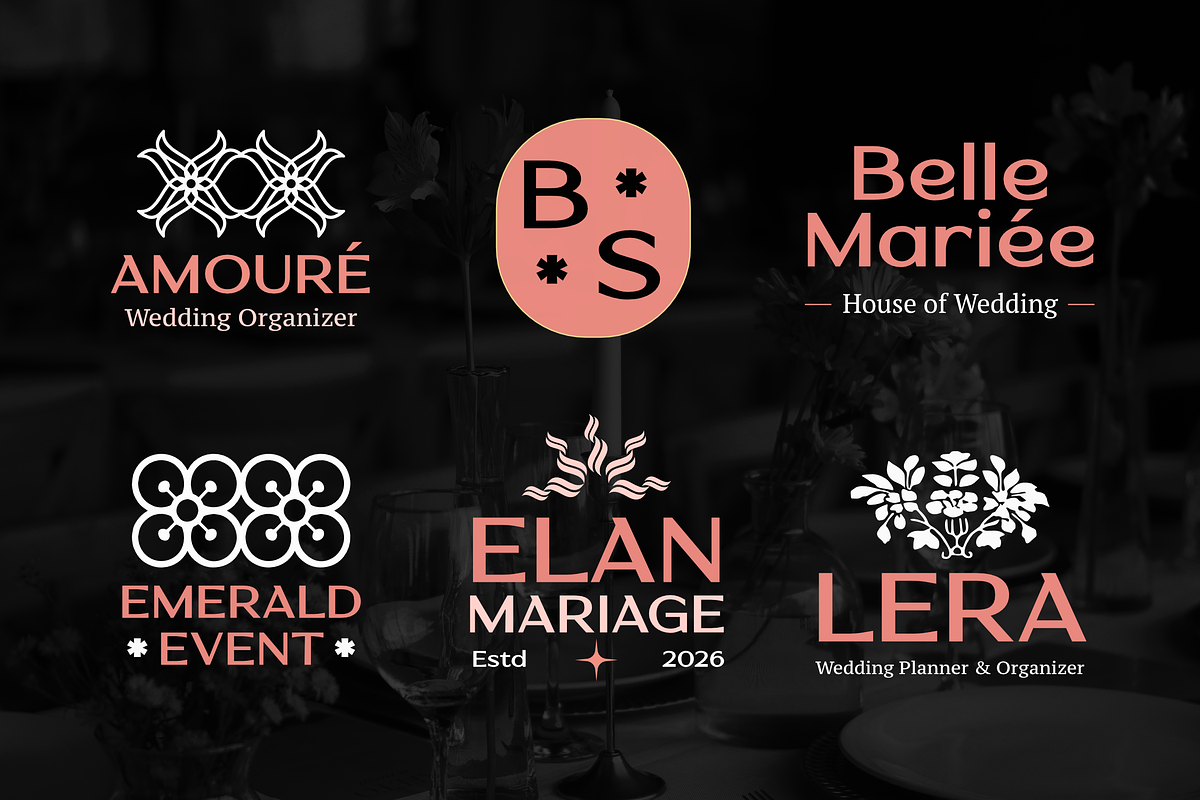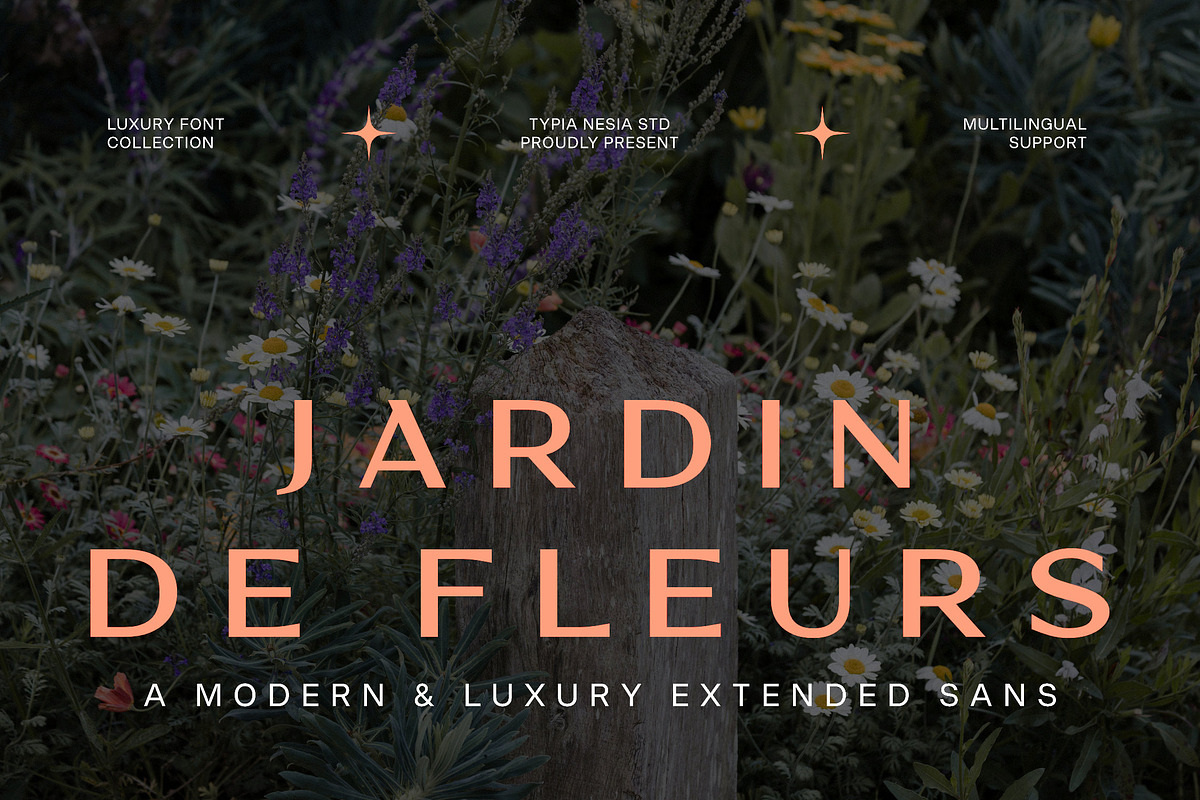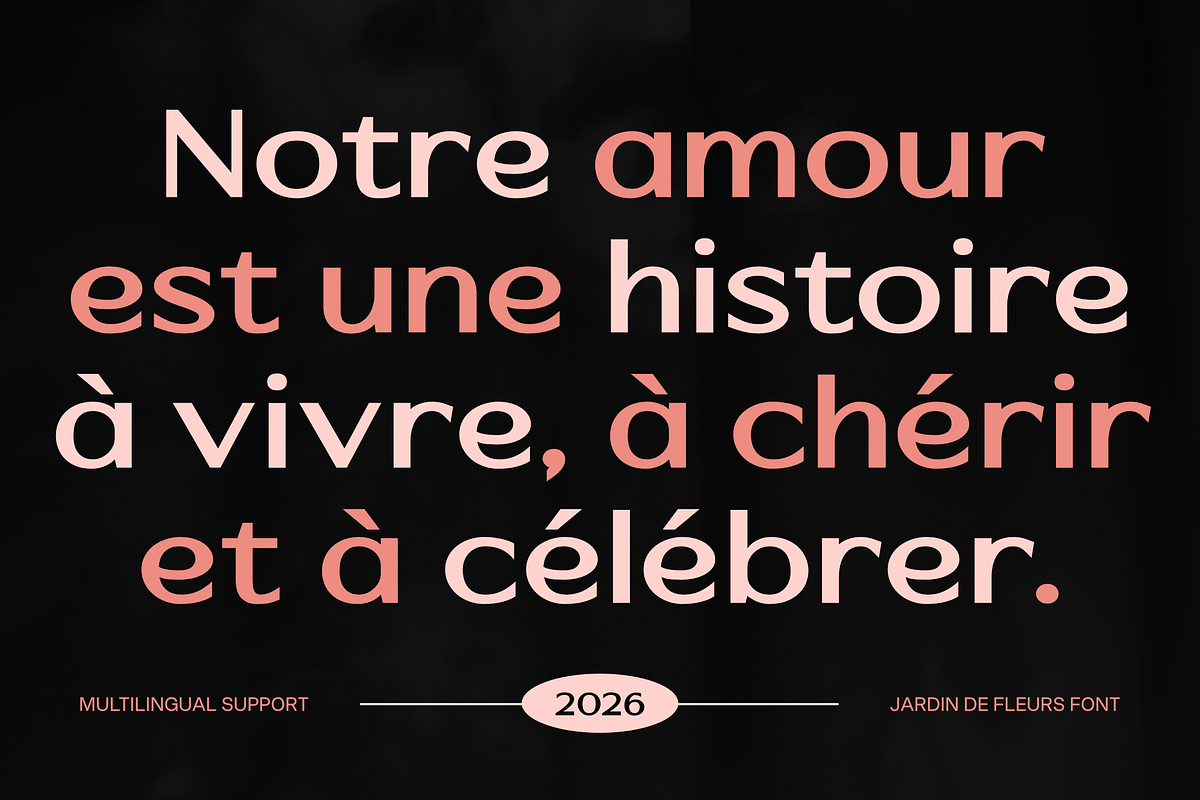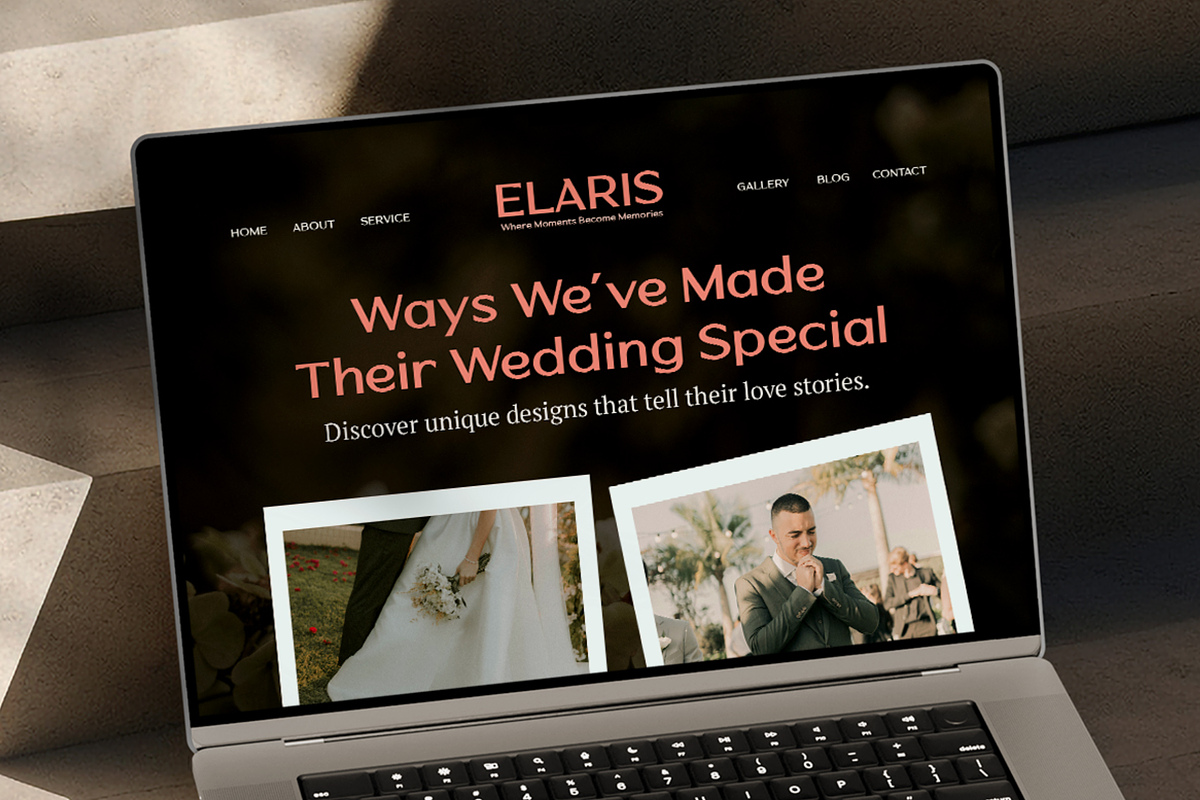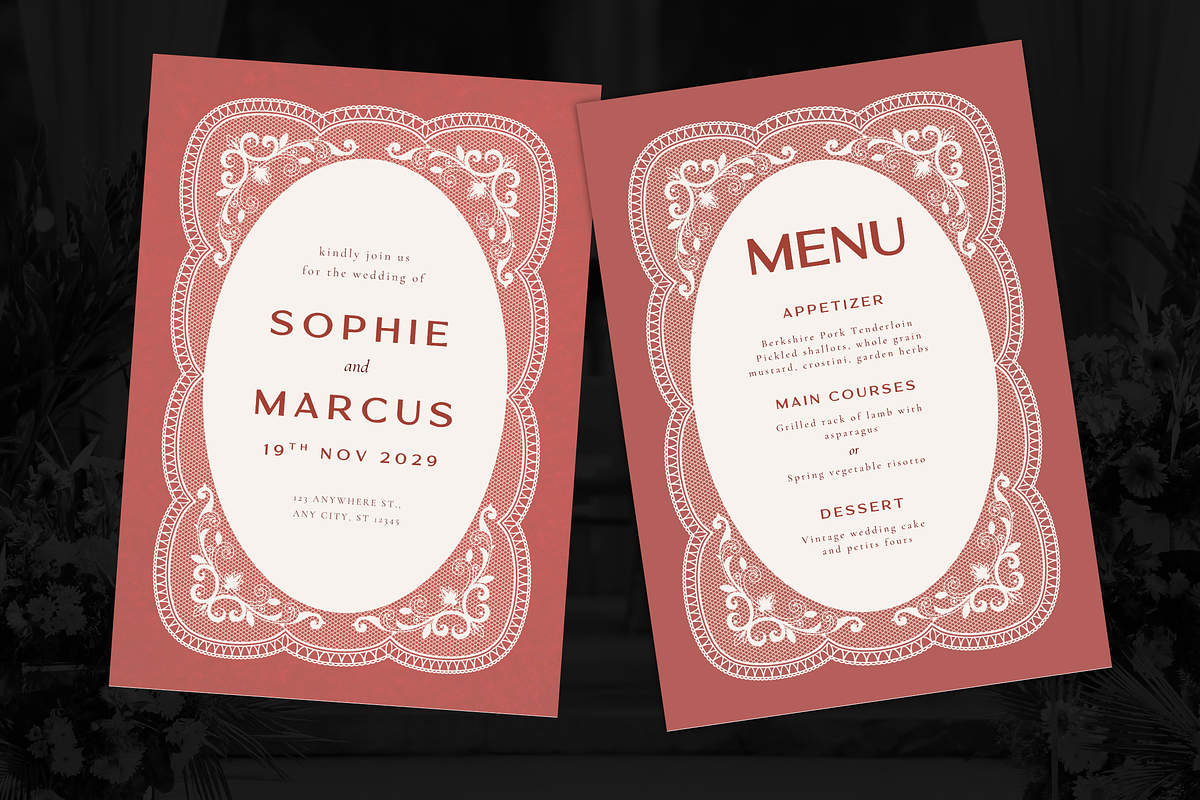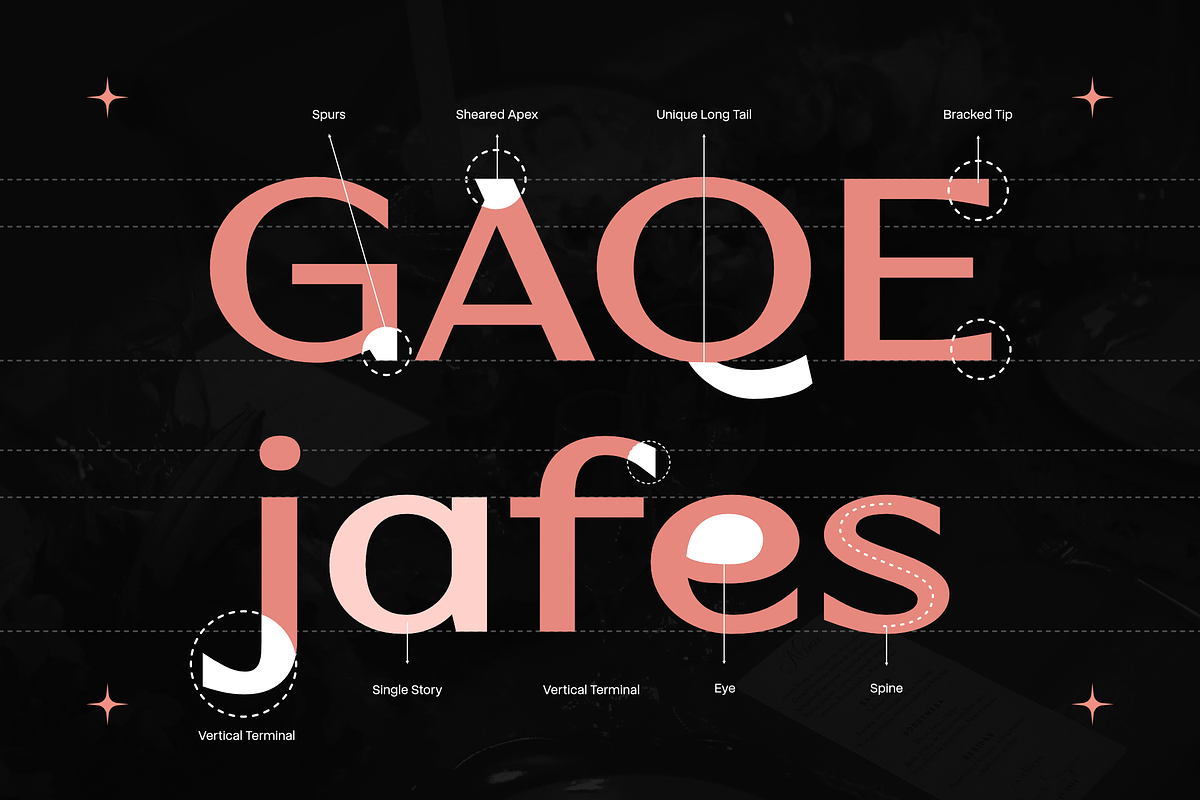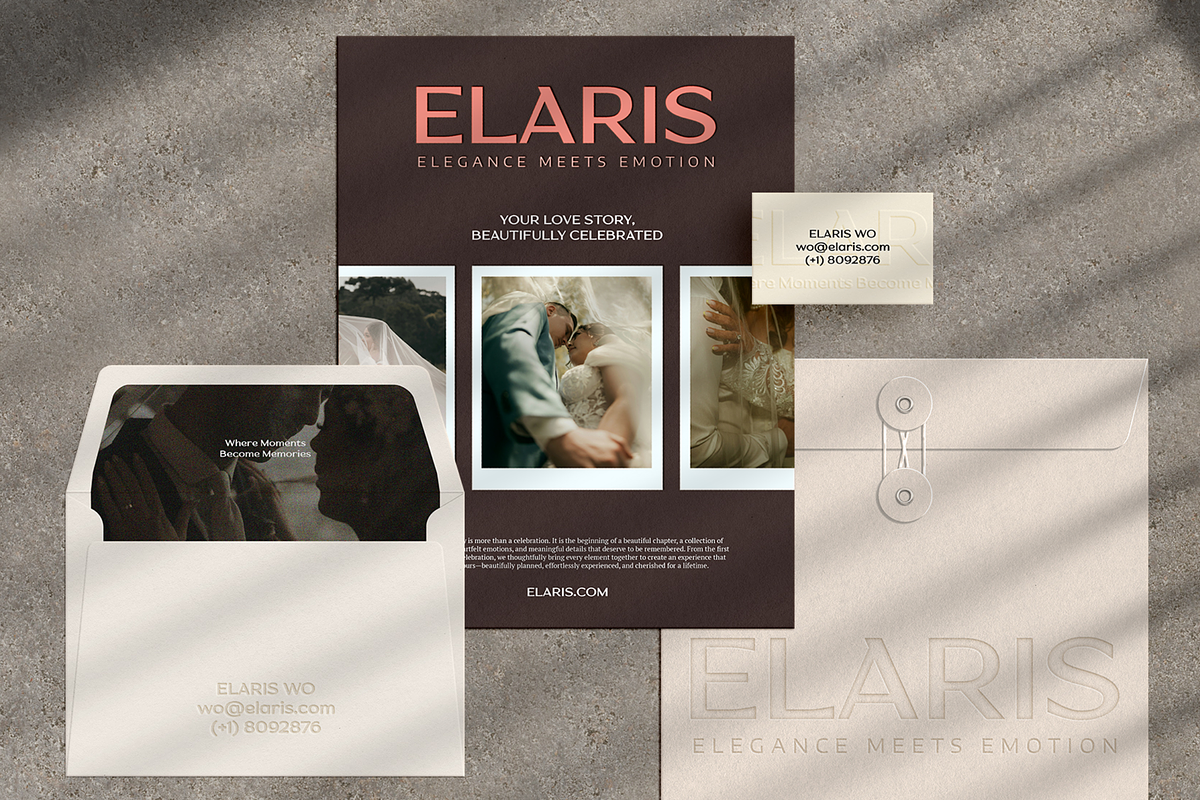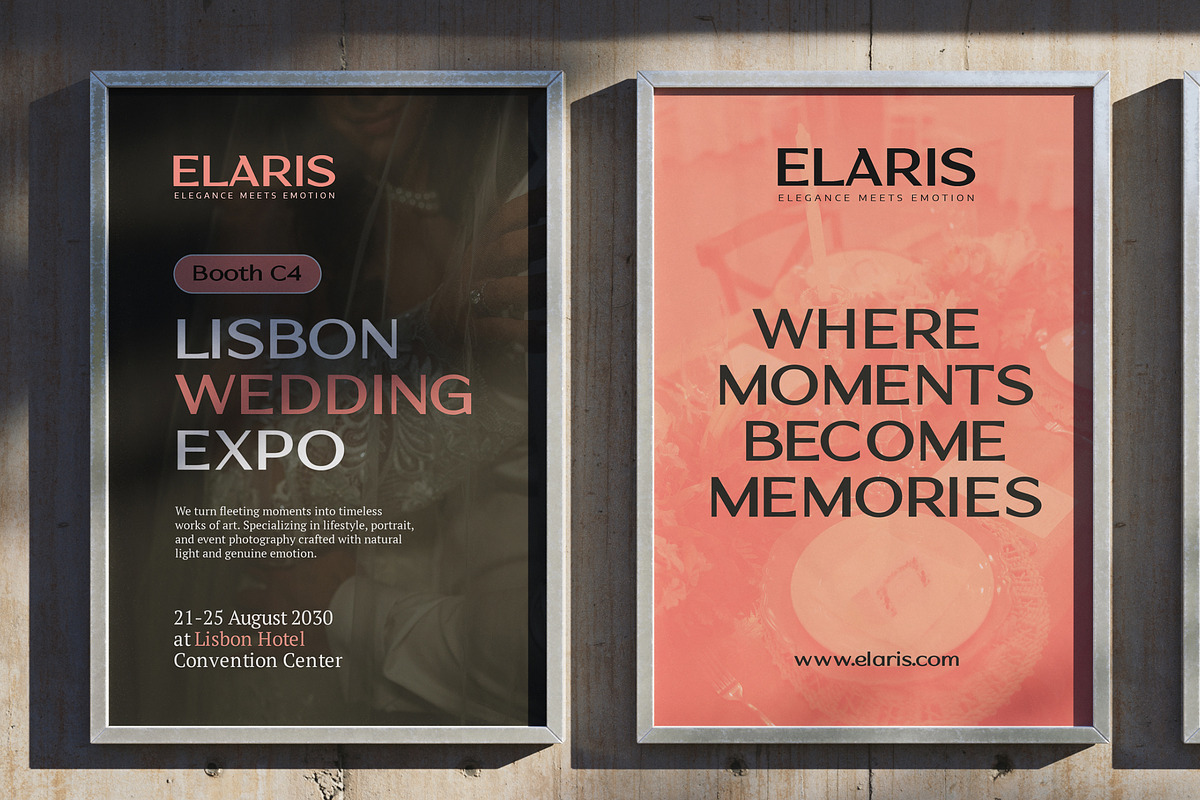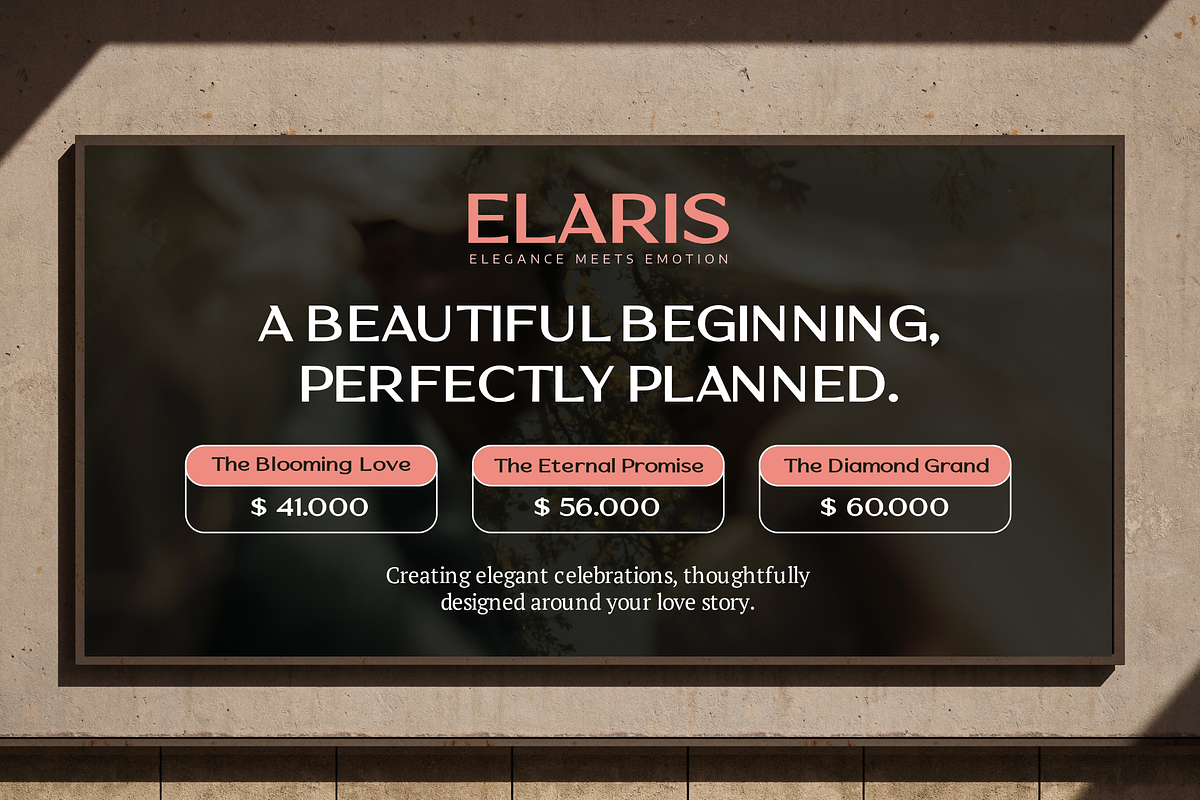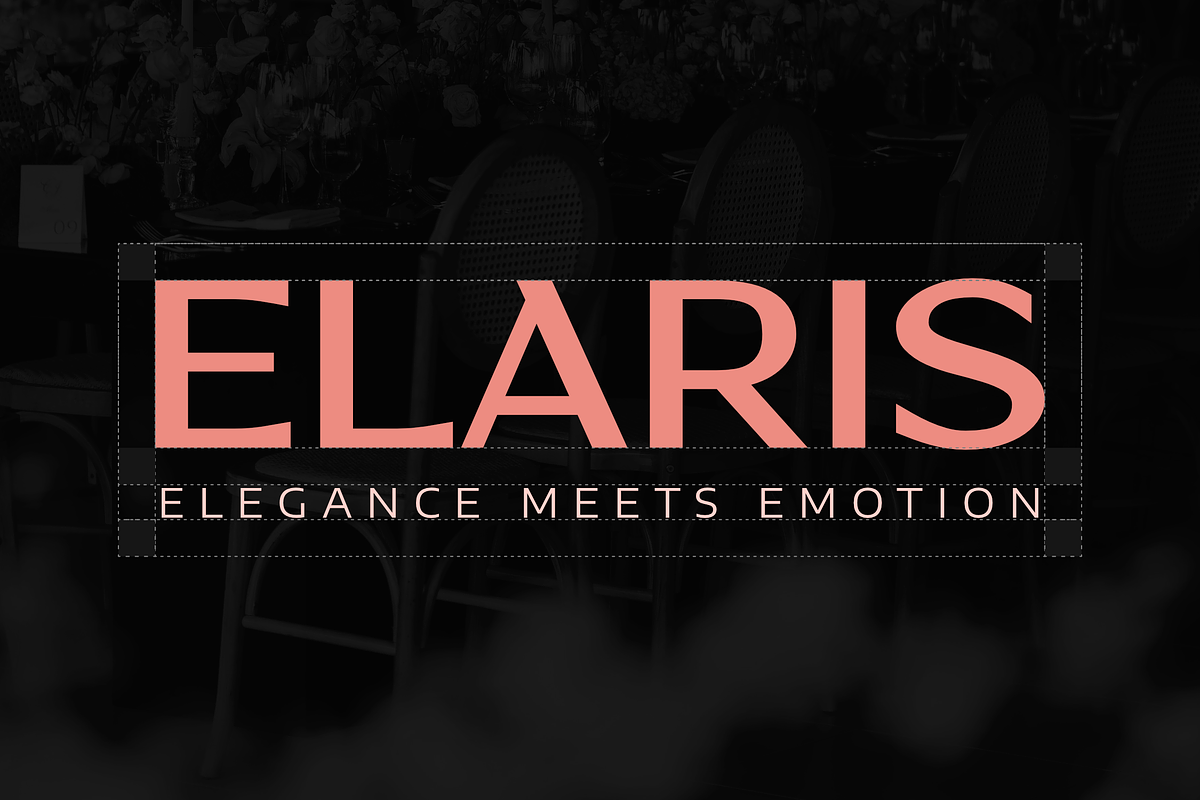
Jardin de Fleurs - Luxury Sans Serif
Jardin de Fleurs is a sophisticated, wide-stance sans serif crafted for luxury fashion houses, wedding planners, and premium lifestyle brands seeking a timeless, upscale aesthetic. Designed to bring a touch of sophistication and high-end prestige, it delivers a refined visual impact that stands out across premium branding and editorial media.
Perfect for luxury logos, wedding invitations, high class branding, perfume packaging, and upscale magazine headlines. It features comprehensive multilingual support and a timeless extended aesthetic, making it versatile and easy to use across a wide range of design needs.